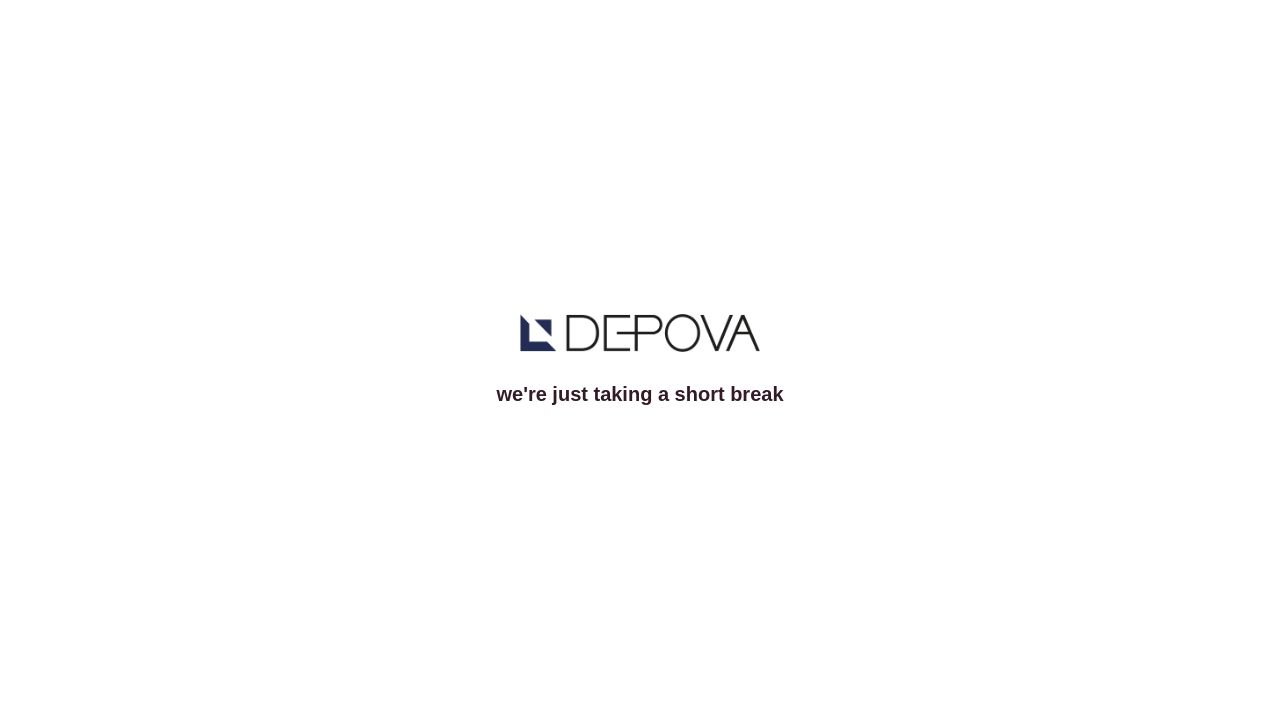
Depova.com utilizes a carefully curated selection of fonts that enhance its identity in the digital landscape. The primary font, Helvetica Neue, brings clarity and legibility, appealing to a diverse audience. Complemented by various FontAwesome styles, including Font Awesome 5 Free and Font Awesome 6 Brands, the site effectively communicates its brand message through iconography and typography. This thoughtful combination ensures a cohesive visual experience that resonates with visitors seeking innovative solutions.
font-family: 'Font Awesome\ 6 Free', sans-serif;These fonts are listed in the CSS as backups. The browser only falls back to them if the main fonts above fail to load.
Depova.com primarily uses Helvetica Neue for text and several FontAwesome variants, including Font Awesome 5 Free and Font Awesome 6 Brands for icons.
FontAwesome is highly versatile and widely used for web design, offering a vast range of icons. Its various versions, like Font Awesome 5 Free, provide different styles and weights, making it a popular choice.
FontAwesome offers multiple styles and weights, including 400 for most icons in Font Awesome 5 Brands and Font Awesome 6 Free, and a heavier 900 weight for Font Awesome 5 Free.
If Helvetica Neue is unavailable, depova.com uses fallback fonts such as Arial, Consolas, Menlo, Segoe UI Emoji, and Apple Color Emoji to ensure text remains readable.